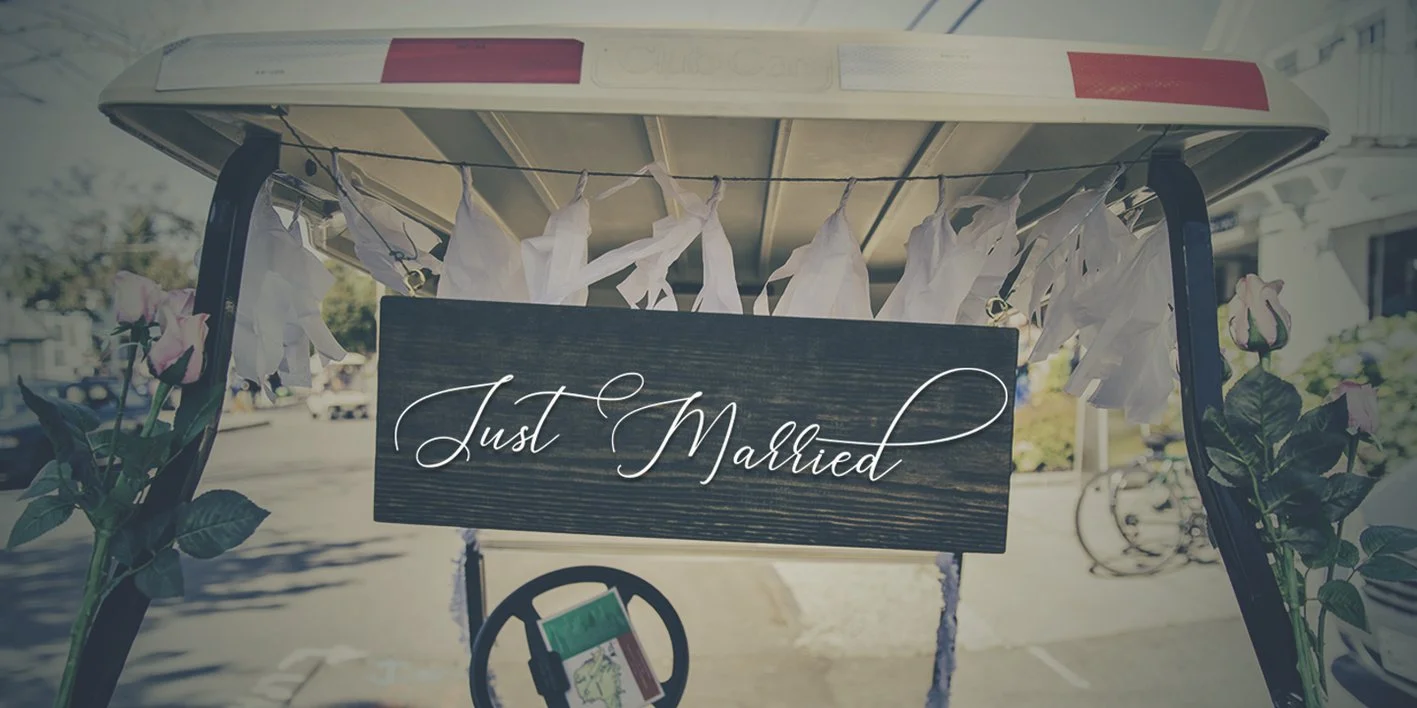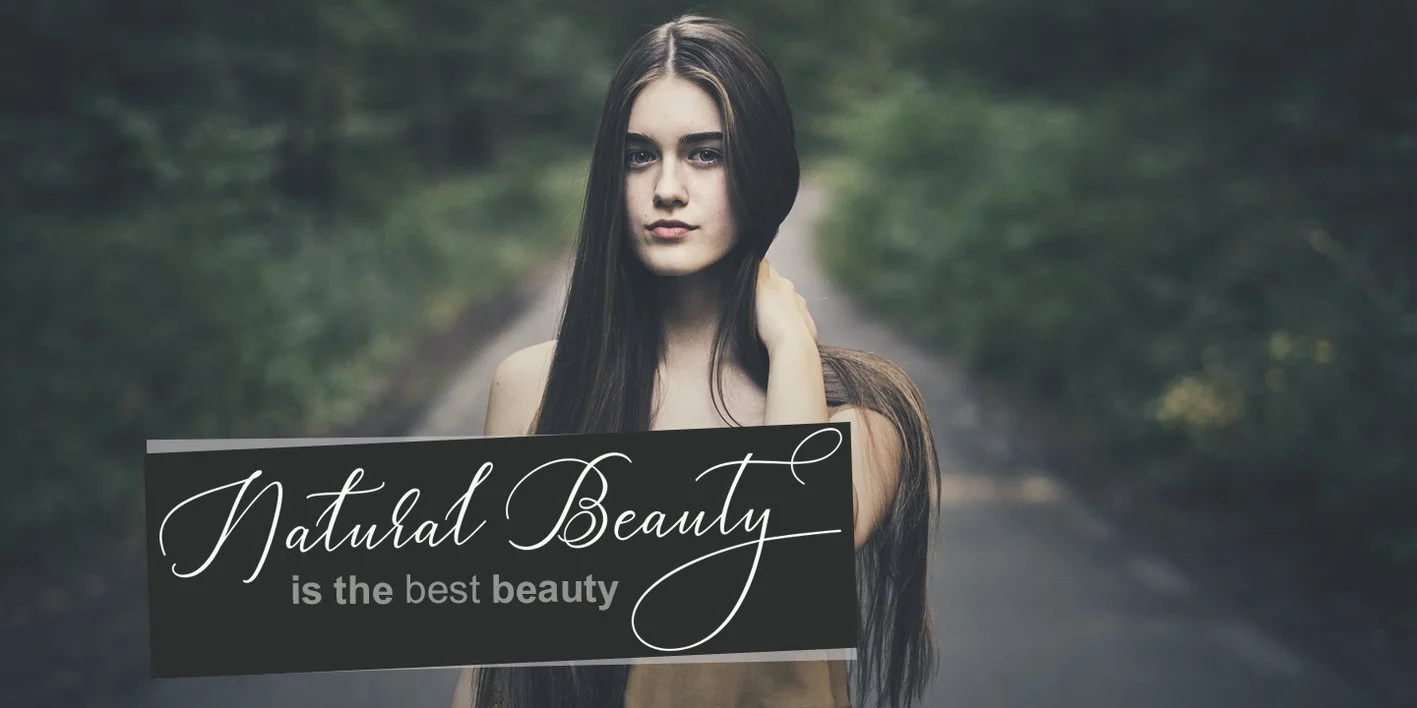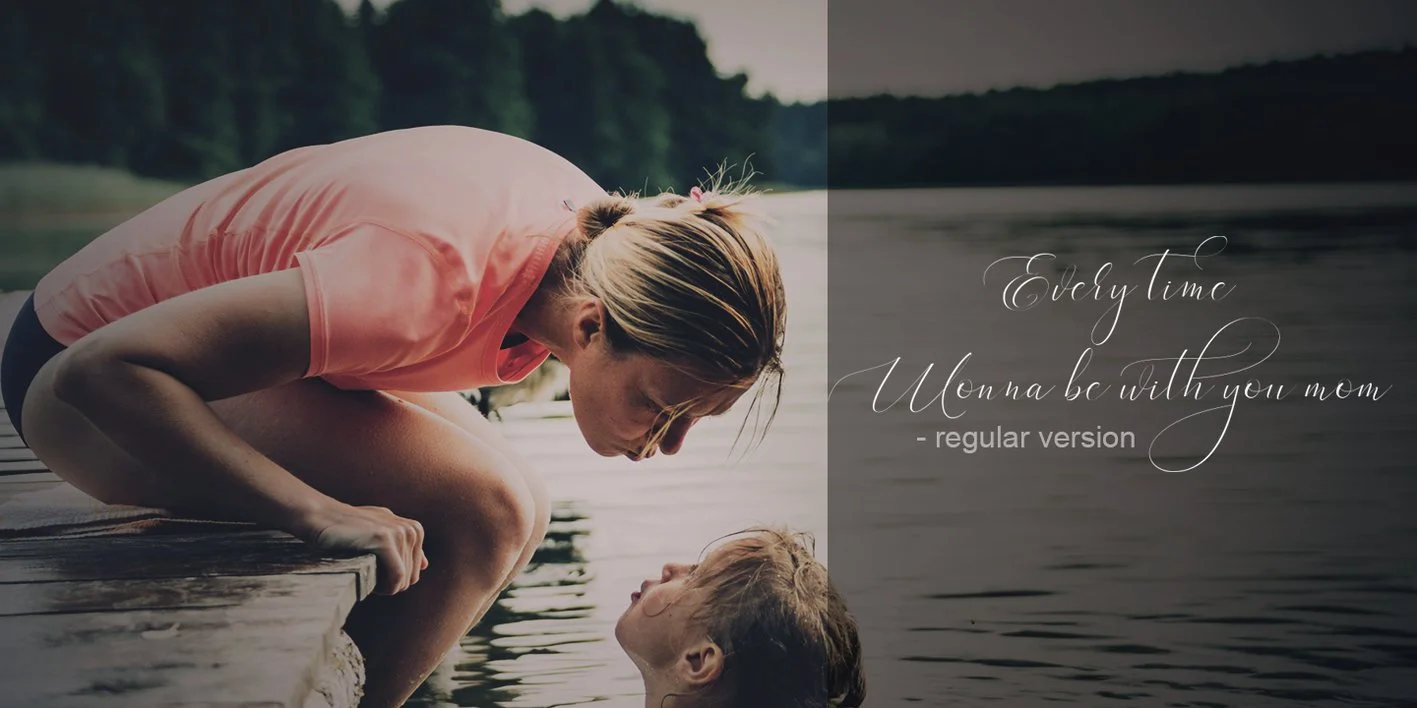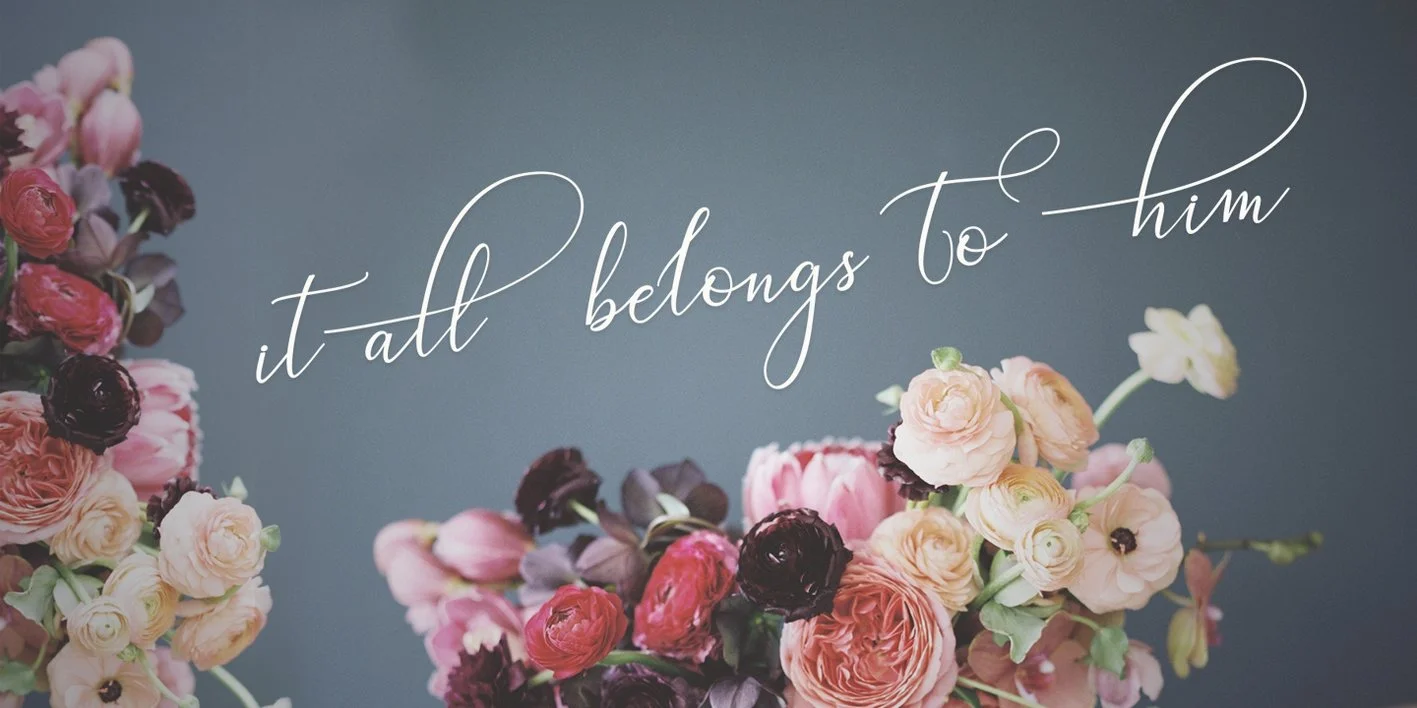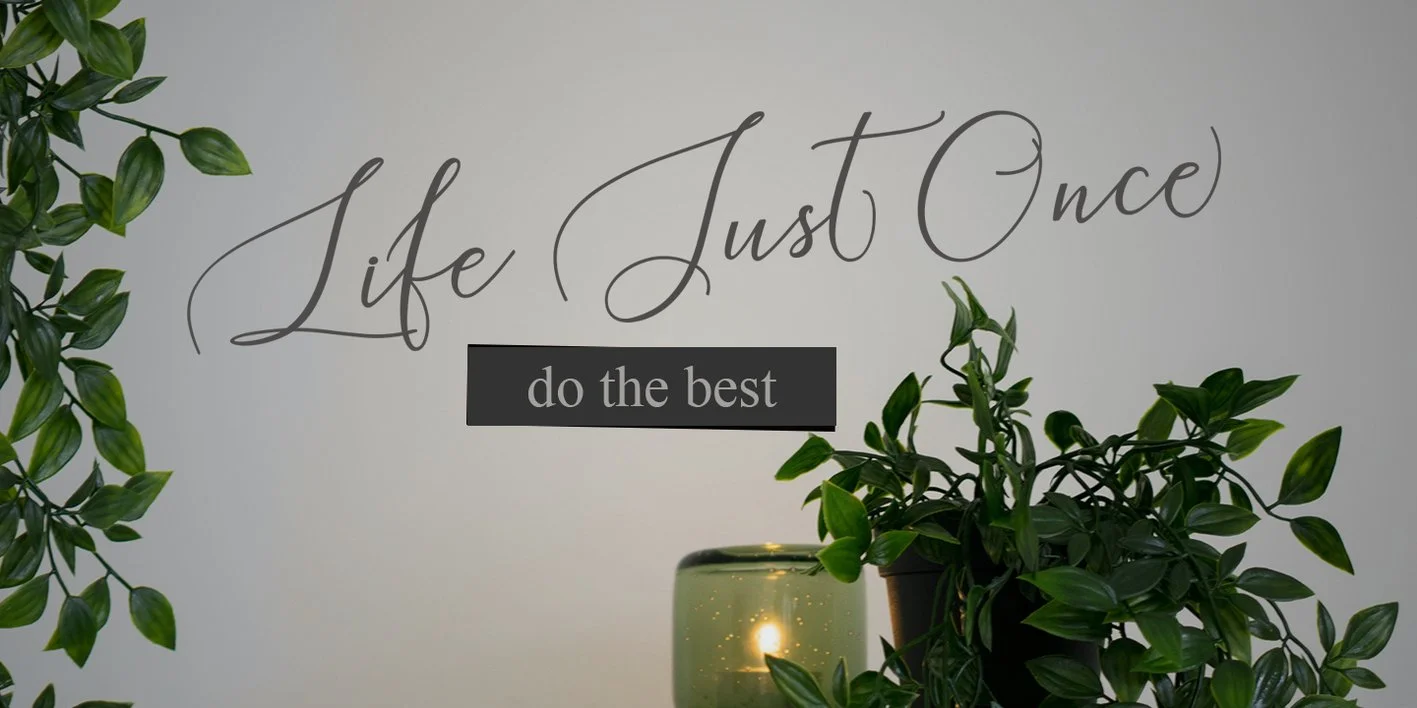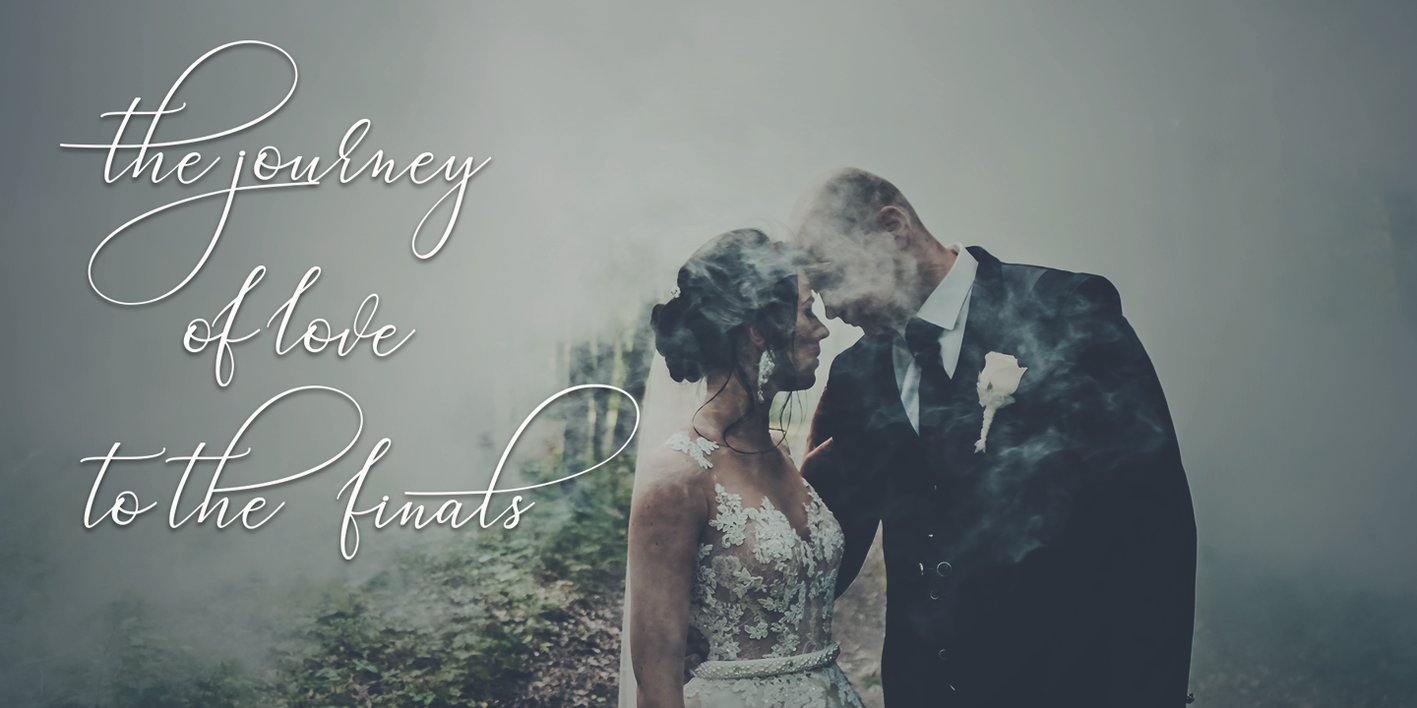
Heavenly Script Font
Typography shapes perception at a subconscious level. Heavenly Script leverages distinctive character without sacrificing readability to make every composition feel considered. The typeface brings an elegant, calligraphic sensibility to a broad range of creative disciplines, with refined proportions and careful stroke modulation that holds up whether the work is print-first or screen-first.
In practice, Heavenly Script proves particularly effective for product labels, perfume labels, greeting cards, boutique logos, environmental graphics. Designers reaching for it find that the type decisions feel resolved rather than laboured — a useful quality when client timelines are tight.
The range of applications extends to annual reports, logo design, bridal materials, packaging design. That breadth is deliberate: the proportions and spacing were stress-tested across a wide range of mock briefs before the typeface was finalised.
Heavenly Script sits comfortably alongside both classic and contemporary typefaces in multi-font hierarchies. It takes direction rather than competing for attention — a quality that experienced designers know is harder to find than it appears.
Freelance designers across print and digital disciplines find Heavenly Script a reliable choice for projects that demand both personality and restraint. The design avoids the self-conscious quirkiness that dates quickly, settling instead for considered distinctiveness that holds up over time.